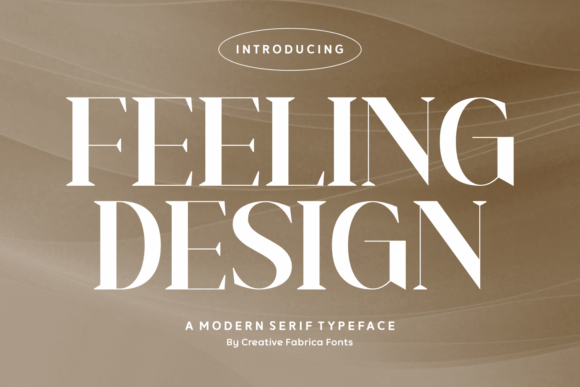
Feeling Design Font: Elevate Your Visuals with a Striking Modern Serif
In the world of typography, a well-designed font can make all the difference in elevating your visual content. Introducing Feeling Design, a striking modern serif font that exudes sophistication and structure. With its sharp lines, clean curves, and stylish editorial flair, Feeling Design is the perfect choice for designers looking to command attention in magazines, websites, lookbooks, and brand presentations.
Key Features of Feeling Design Font
- Sharp Lines and Clean Curves: Feeling Design boasts sharp lines and clean curves, giving it a modern and sleek appearance.
- Stylish Editorial Flair: This font is designed with an editorial flair, making it perfect for use in magazines, lookbooks, and other visual content.
- Sophistication and Structure: Feeling Design exudes sophistication and structure, making it ideal for designers looking to elevate their visuals.
- Highly Versatile: This font is highly versatile and can be used for everything from elegant headlines to luxury product promotions.
Ideas for Using Feeling Design Font
Feeling Design is a versatile font that can be used in a variety of contexts. Here are some ideas to get you started:
- Magazines and Editorials: Use Feeling Design as a headline font to add a touch of sophistication and elegance to your magazine or editorial content.
- Websites and Blogs: Feeling Design is perfect for use on websites and blogs, particularly those with a luxury or editorial focus.
- Lookbooks and Catalogs: This font is ideal for use in lookbooks and catalogs, where you want to showcase products in a stylish and elegant way.
- Brand Presentations: Use Feeling Design to add a touch of sophistication and professionalism to your brand presentations.
- Luxury Product Promotions: Feeling Design is perfect for use in luxury product promotions, where you want to convey a sense of high-end quality and sophistication.
Typography Tips for Using Feeling Design Font
Here are some typography tips to keep in mind when using Feeling Design:
- Use it as a Headline Font: Feeling Design is perfect for use as a headline font, where you want to command attention and add a touch of sophistication.
- Pair it with a Sans-Serif Font: For body text, consider pairing Feeling Design with a sans-serif font to create a nice contrast and add visual interest.
- Experiment with Font Sizes: Don’t be afraid to experiment with different font sizes to create visual hierarchy and add emphasis to your content.
- Pay Attention to Line Spacing: Make sure to pay attention to line spacing to ensure that your text is easy to read and visually appealing.
The Benefits of Using Feeling Design Font
So why choose Feeling Design font for your next project? Here are just a few benefits:
- Sophisticated and Elegant: Feeling Design adds a touch of sophistication and elegance to your visual content.
- Highly Versatile: This font is highly versatile and can be used in a variety of contexts.
- Easy to Read: Feeling Design is easy to read, even at small font sizes.
- Unique and Memorable: This font is unique and memorable, making it perfect for brands looking to stand out.
In conclusion, Feeling Design font is a striking modern serif font that is perfect for designers looking to elevate their visuals. With its sharp lines, clean curves, and stylish editorial flair, Feeling Design exudes sophistication and structure. Whether you’re working on a magazine, website, lookbook, or brand presentation, this font is sure to command attention and add a touch of elegance to your content.